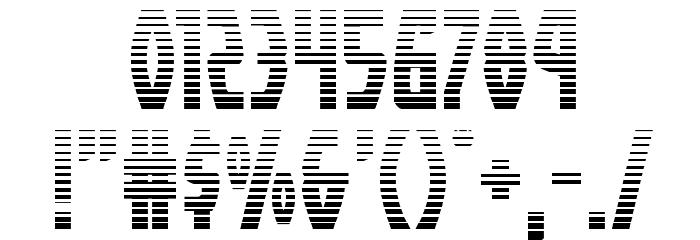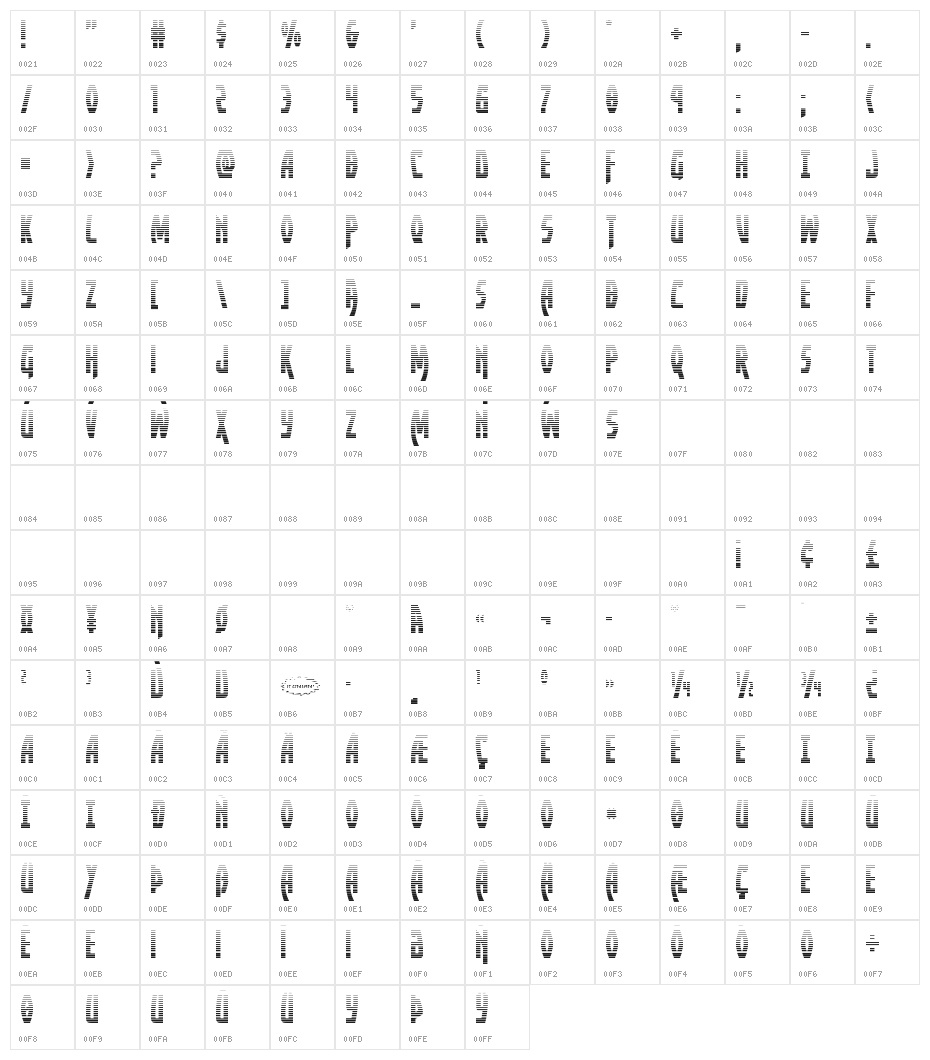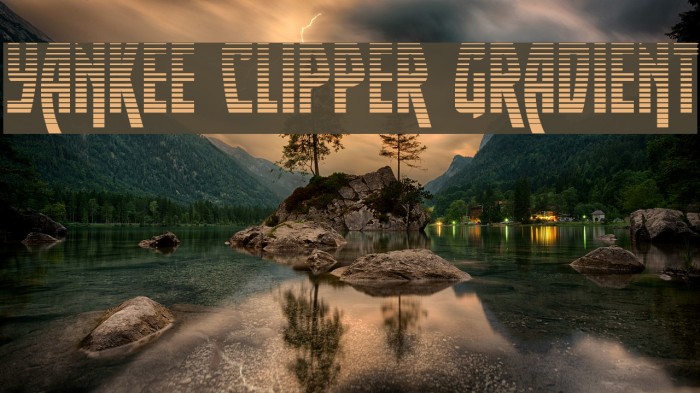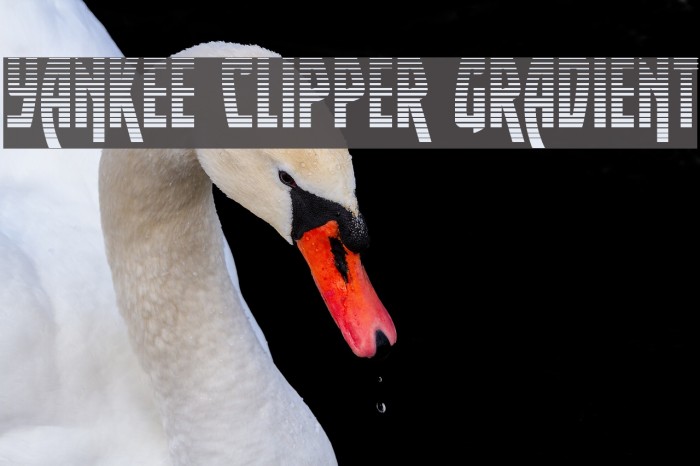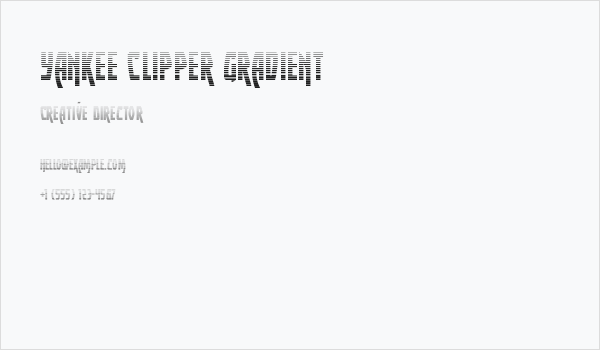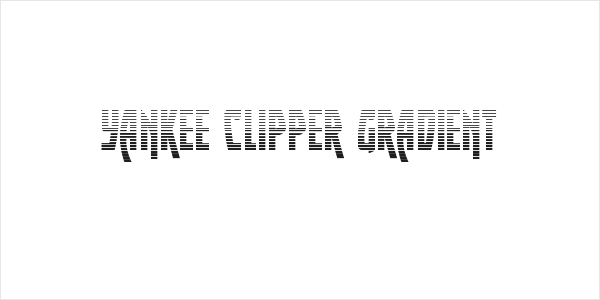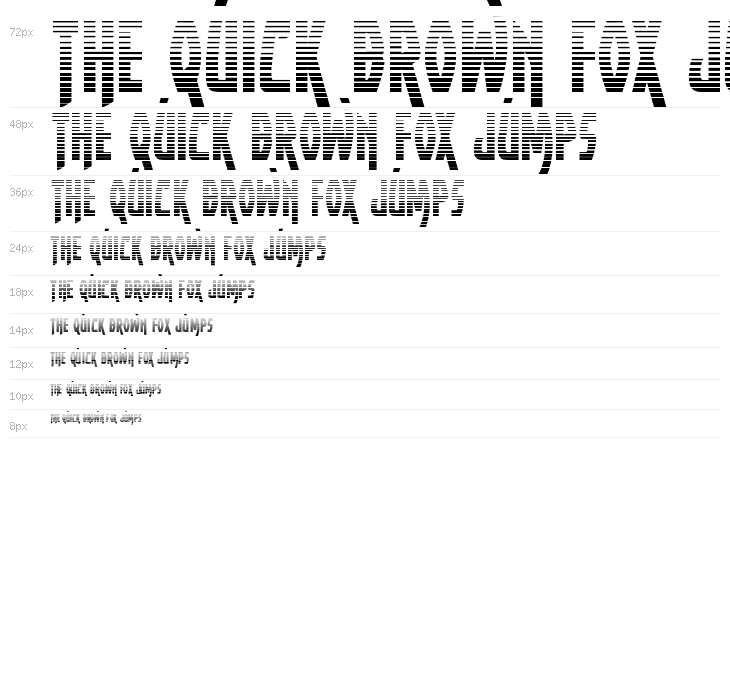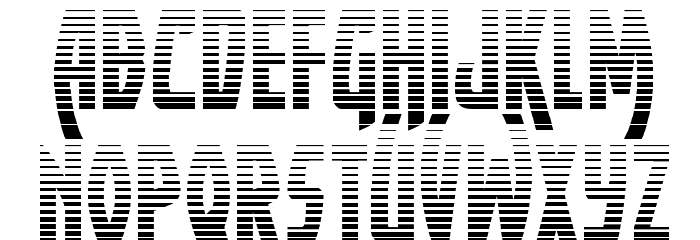
Yankee Clipper Gradient Font
Yankee Clipper Gradient Description
This font features a bold, decorative style with a unique gradient effect created by horizontal lines that vary in thickness. The uppercase and lowercase letters are designed with a consistent width, giving a uniform appearance. The numerals and special characters maintain the same stylistic approach, ensuring cohesion across all elements. The font's distinct look is achieved through its high contrast between the thick and thin lines, creating a striking visual impact. This design is particularly eye-catching and suitable for projects that require a modern and edgy aesthetic.
| Proposed Projects | Ideal for posters, album covers, branding, and any project needing a modern, eye-catching design. |